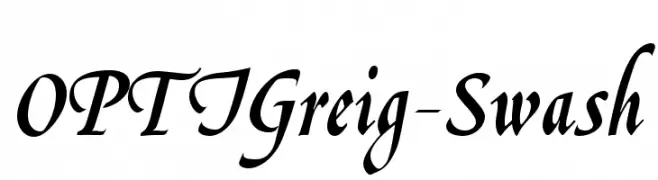
An elegant script font with intricate swashes and flowing letterforms.
A bold, cursive script font with elegant loops and swashes.
An elegant script font with flowing, cursive letterforms and artistic swashes.
A flowing, cursive font with elegant loops and swashes, offering a handwritten aesthetic.
An elegant and sophisticated script font with intricate swashes and flowing cursive style.
A bold, expressive handwritten font with dynamic letterforms and playful swashes.
A graceful and elegant script font with flowing cursive letters and intricate swashes.
An elegant, flowing script font with graceful loops and swashes.
An elegant and flowing script font with decorative swashes.
A modern, elegant script font with flowing cursive letters and graceful swashes.
A graceful script font with elegant loops and swashes, ideal for sophisticated designs.
A lively and expressive handwritten font with dynamic letterforms and playful swashes.
A decorative script font with elegant swashes and flowing letters.
An elegant script font with flowing, decorative swashes and loops.
An elegant, flowing script font with graceful loops and swashes.
An elegant script font with flowing, cursive letters and intricate swashes.
An ornate script font with intricate swashes and curls, perfect for decorative uses.
An elegant script font with intricate swashes and flourishes, perfect for decorative use.
An elegant script font with intricate, flowing lines and elaborate swashes.
A modern, elegant script font with flowing, cursive characters and sophisticated swashes.
A graceful and ornate script font with elegant swashes and high contrast.
An elegant script font with flowing, cursive letterforms and intricate swashes.
A classic serif font with elegant swashes and decorative flourishes.
An elegant script font with flowing, cursive characters and intricate swashes.
An elegant script font with high contrast and ornate swashes.
A sophisticated cursive font with elegant loops and swashes.
A bold, expressive script font with flowing, cursive letterforms and dynamic swashes.
An elegant, flowing script font with intricate loops and swashes, perfect for formal occasions.
An elegant, flowing script font with intricate swashes.